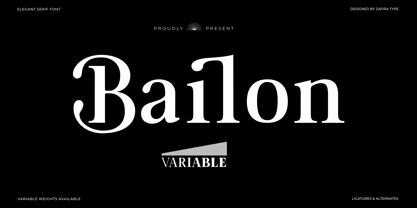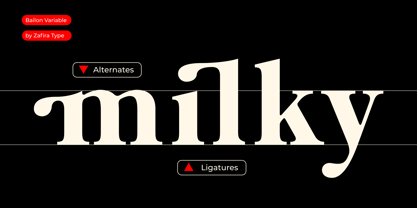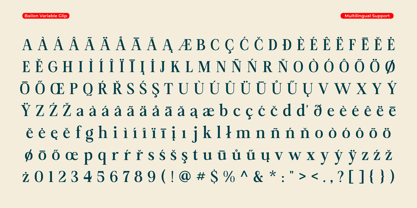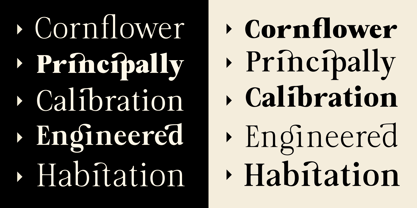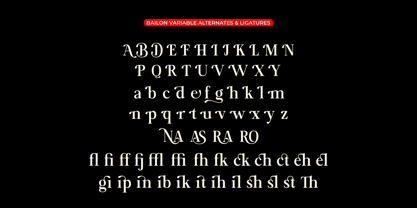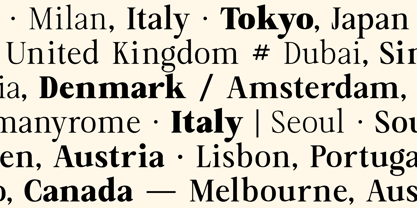
Bailon Variable
by Zafira Type
The Bailon Variable Font Family was designed by Su Hirno and published by Zafira Type. Bailon Variable contains 1 styles. More about this family
Bailon Variable is a sleek, modern sans-serif typeface designed with a single-axis variable structure focused purely on font weight. By consolidating the entire weight spectrum into a single font file, it delivers maximum technical efficiency and visual consistency.
Visual Characteristics
• Clean & Geometric: Sharp, precise lines that give off an elegant, high-end visual tone.
• Proportional Stability: The character width and overall structure stay perfectly locked, preventing layout shifts when adjusting thickness.
• Smooth Weight Transition: Offers fluid scaling across all weight values (from Thin to Black) without losing visual harmony or legibility.
Designers: Su Hirno
Foundry: Zafira Type